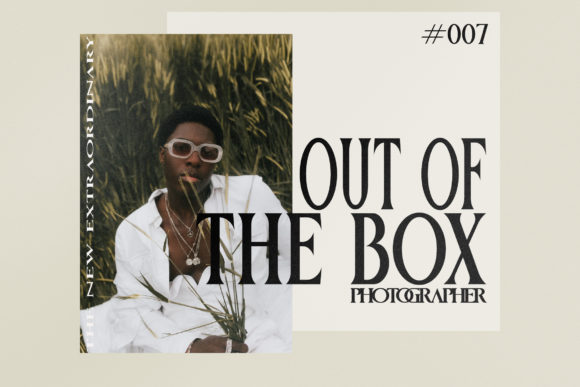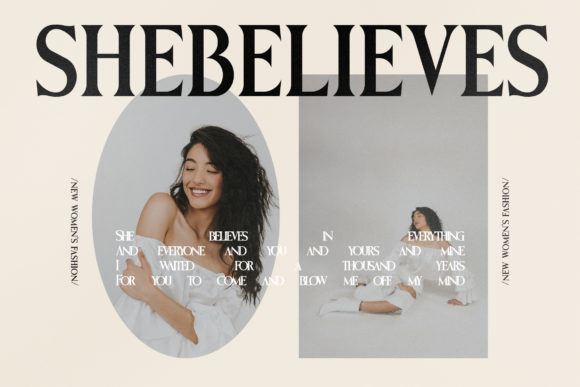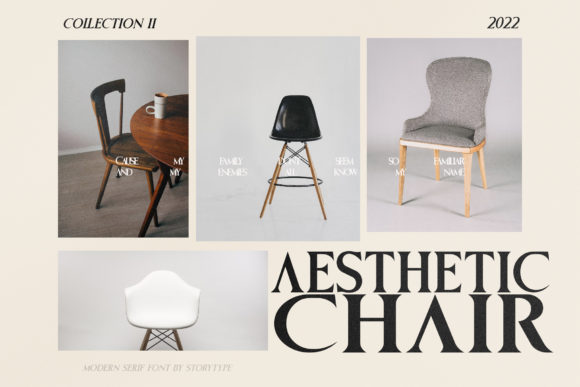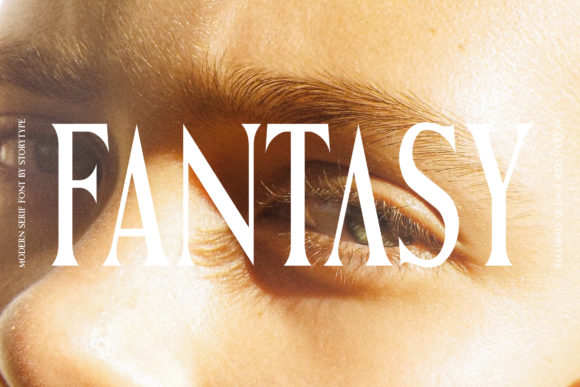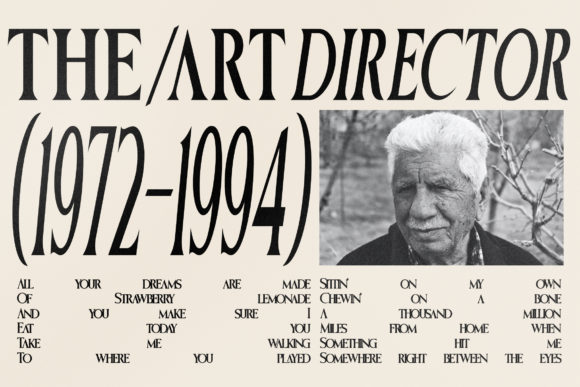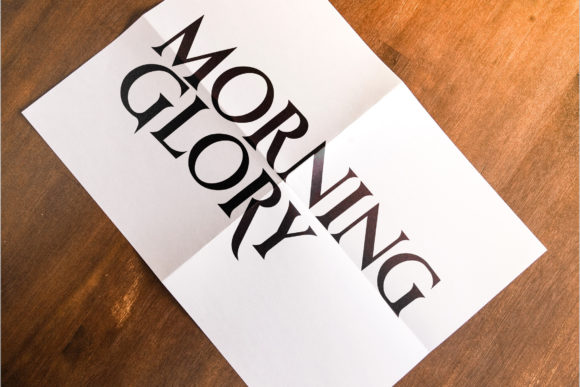
Monster of Fantasy Font
Monster of Fantasy is a modern and classic serif font featuring its own unique style and modern look.
This typeface is perfect for an elegant & luxury logo, book or movie title design, fashion brand, magazine, clothes, lettering, quotes, and so much more.